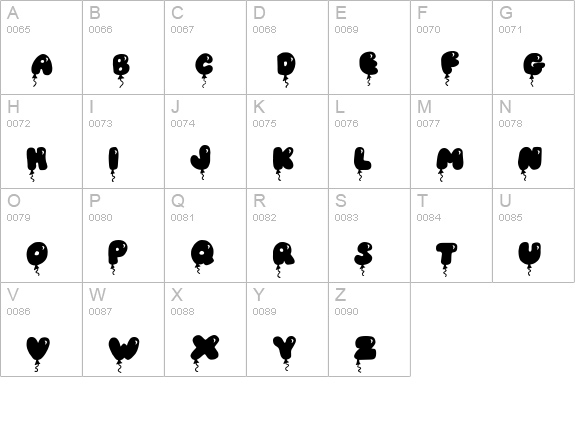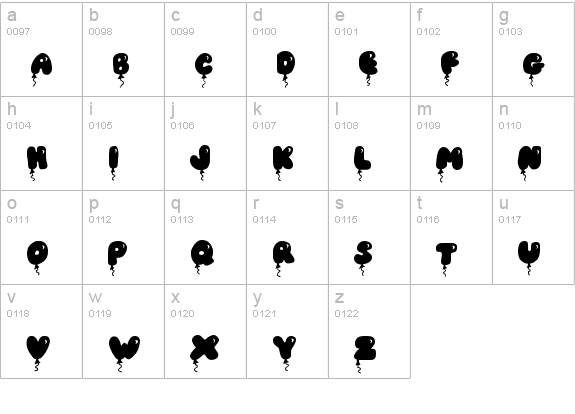
JI Solid Balloon Caps Font Details
JI Solid Balloon Caps font is a delightful and playful typeface that will add a touch of whimsy to any design. With its rounded and plump letterforms, this font mimics the appearance of inflated balloons, bringing a sense of joy and celebration to your projects. Each letter is crafted with care and attention to detail, creating a cohesive and visually pleasing look. The JI Solid Balloon Caps font is perfect for a variety of creative projects, such as party invitations, birthday cards, children's books, posters, and more. Its unique design will instantly capture attention and bring a sense of fun and excitement to your designs. One of the best things about JI Solid Balloon Caps font is that it is available for free download at FontsMarket.com. This means that you can easily access this charming typeface without having to spend a penny. Whether you're a professional designer or a hobbyist, this font offers a fantastic opportunity to enhance your creations without breaking the bank. So why wait? Download JI Solid Balloon Caps font today and infuse your designs with a delightful dose of whimsy. Let your creativity soar as you explore the endless possibilities this font has to offer. Whether you're designing for a birthday party, a children's event, or simply want to add a touch of playfulness to your projects, JI Solid Balloon Caps font is the perfect choice. Don't miss out on this incredible free font - head over to FontsMarket.com and start creating magic today.